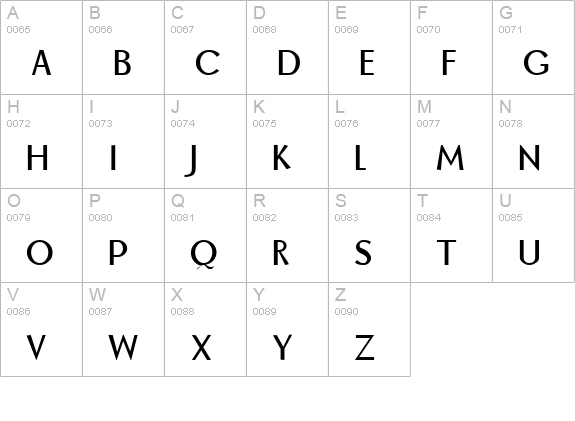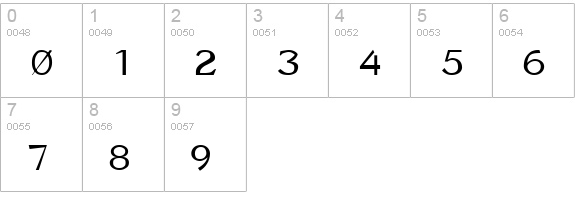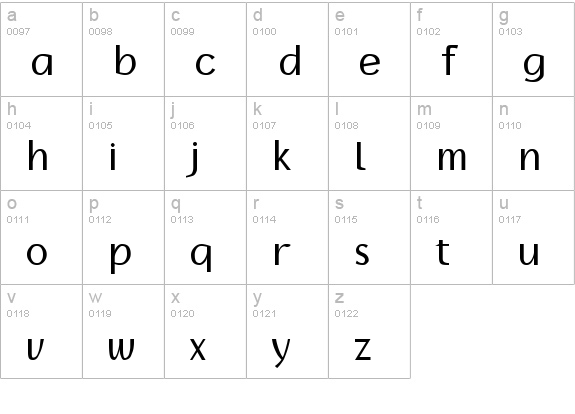
Borzoi Regular is the standard, neutral variant in the Borzoi typeface family \xE2\x80\x94 well suited to general body text, paragraphs, and standard typographic work.
Borzoi Regular font is a sleek and elegant typeface that exudes sophistication and charm. Its tall, slender letterforms are inspired by the graceful lines of the Borzoi dog breed, known for its regal appearance and noble stature. The clean lines and subtle curves of Borzoi Regular make it a versatile choice for a wide range of design projects, from elegant invitations to stylish branding. This stunning font is available for free download at FontsMarket.com, making it easily accessible to designers and creatives looking to elevate their work with a touch of refinement. Whether you're designing a logo, creating a poster, or crafting a stylish website, Borzoi Regular is sure to add a touch of class and sophistication to your projects. Download it today and let its timeless elegance elevate your designs to new heights.